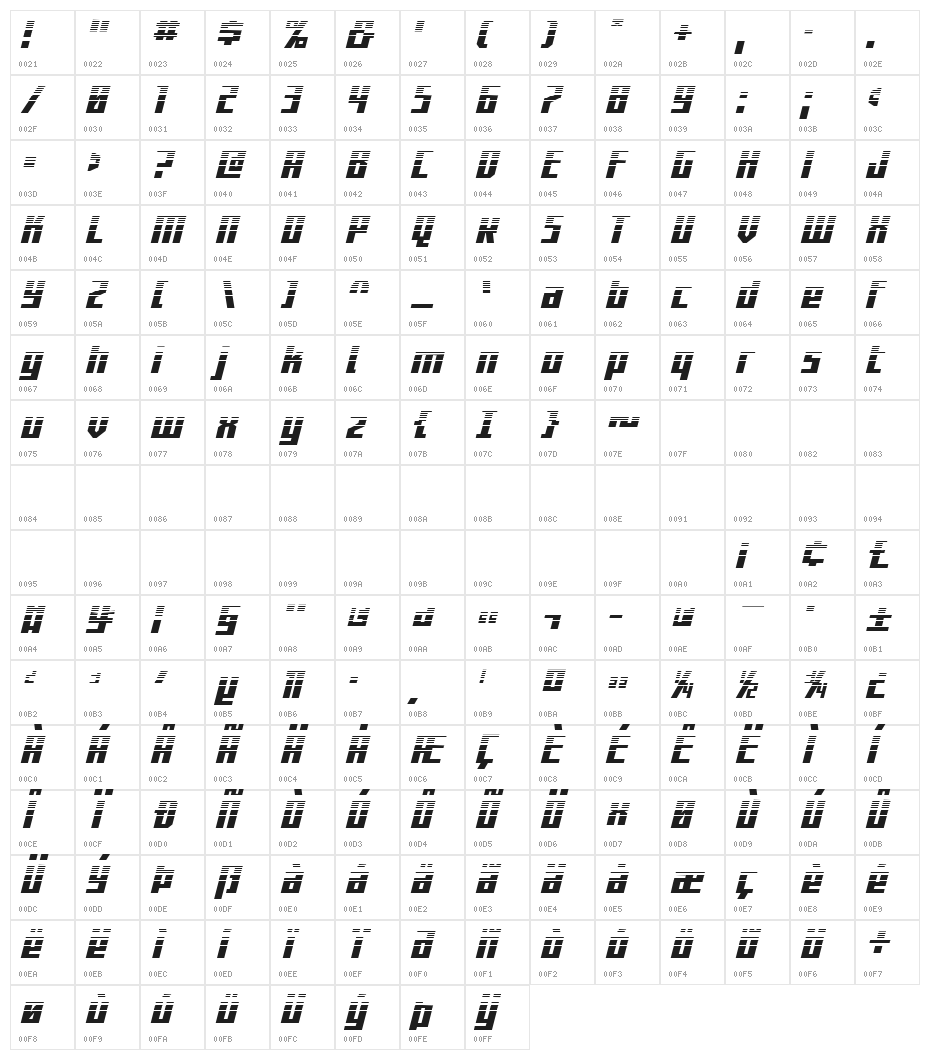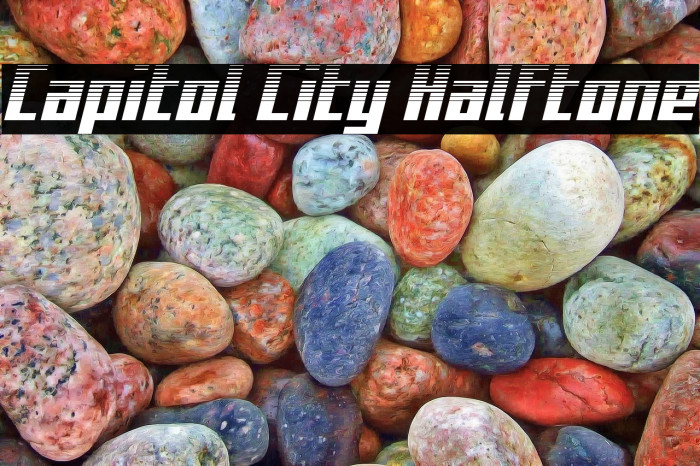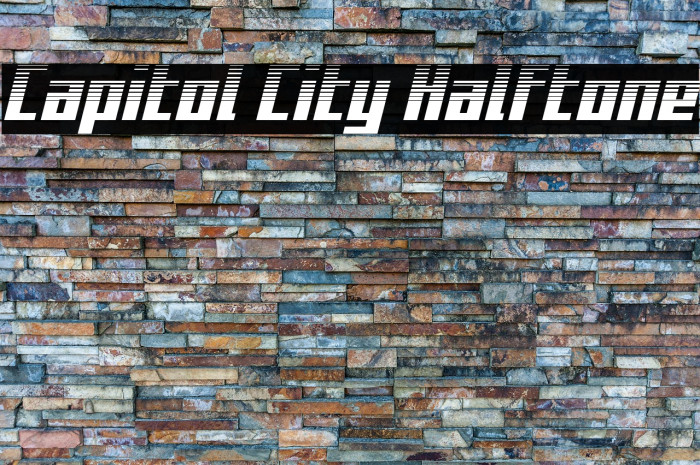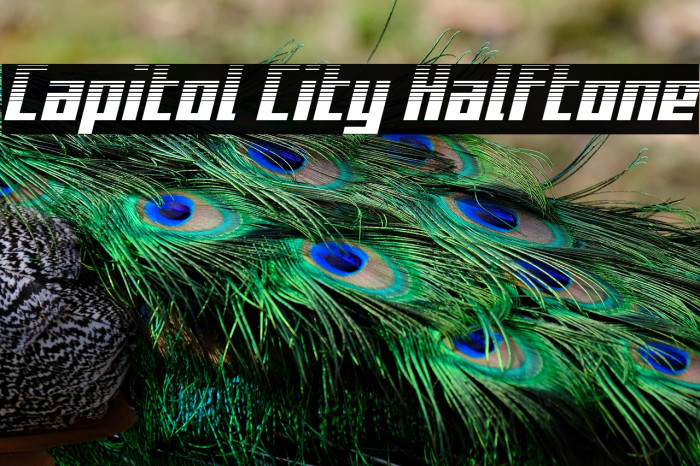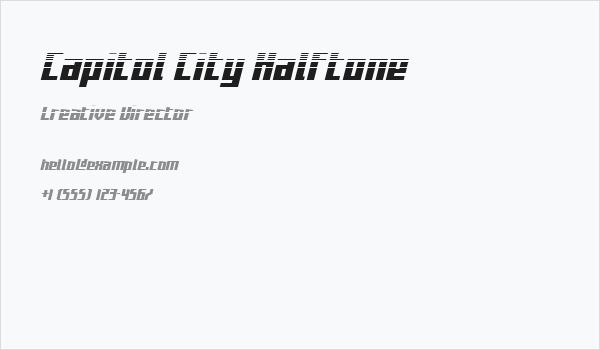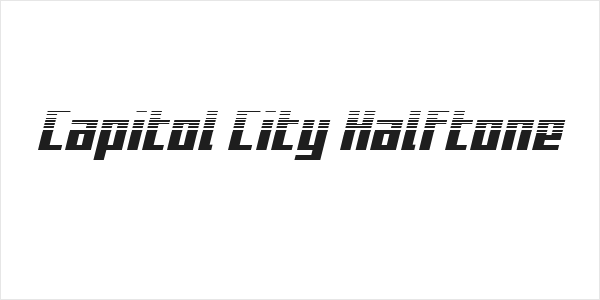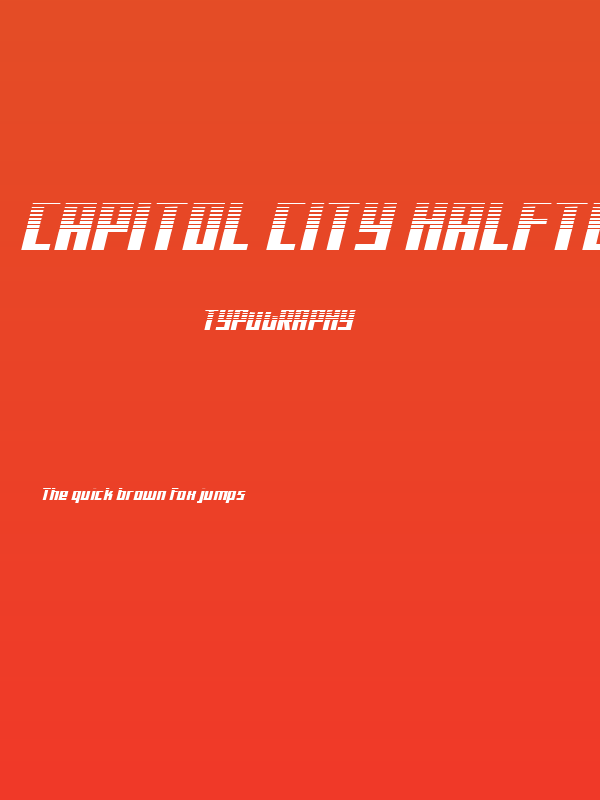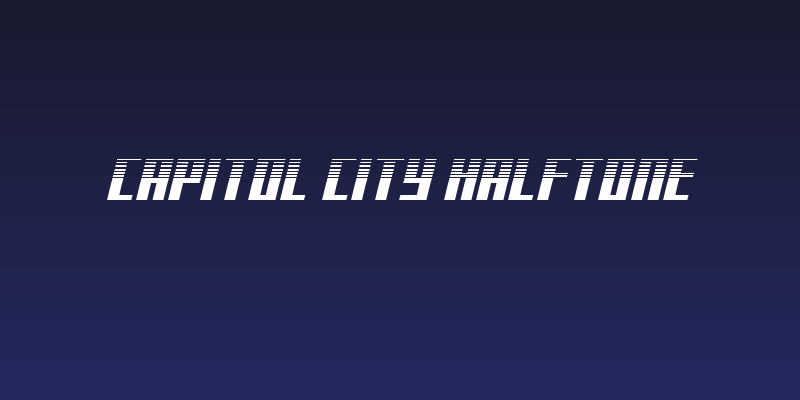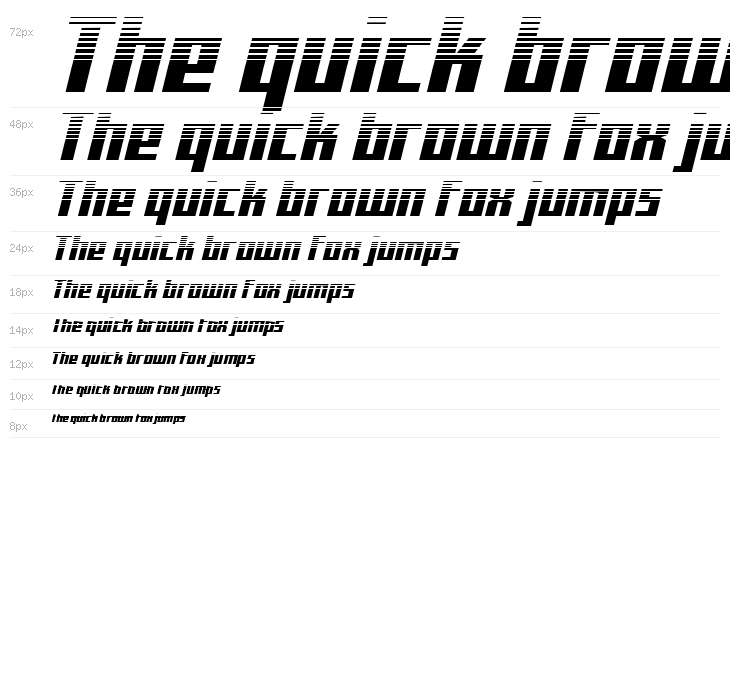
Capitol City Halftone Font
Capitol City Halftone Description
This font features a bold, dynamic design with a halftone effect that gives it a unique, modern appearance. The characters are constructed with a combination of solid and striped elements, creating a sense of movement and energy. The uppercase and lowercase letters maintain a consistent style, with sharp angles and a slightly condensed form. The numbers and special characters follow the same design principles, ensuring a cohesive look across all elements. This font's distinctive style makes it ideal for eye-catching designs.
| Proposed Projects | Ideal for posters, album covers, sports branding, and any project requiring a modern, energetic look. |